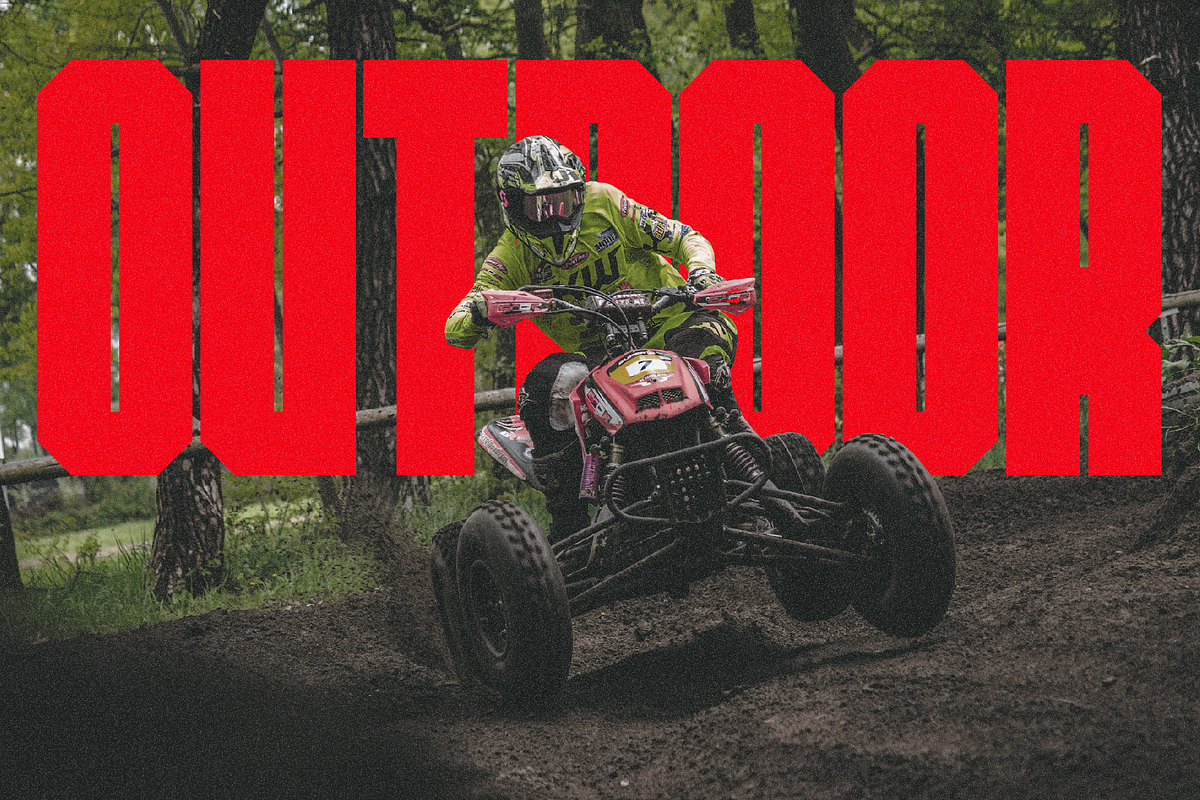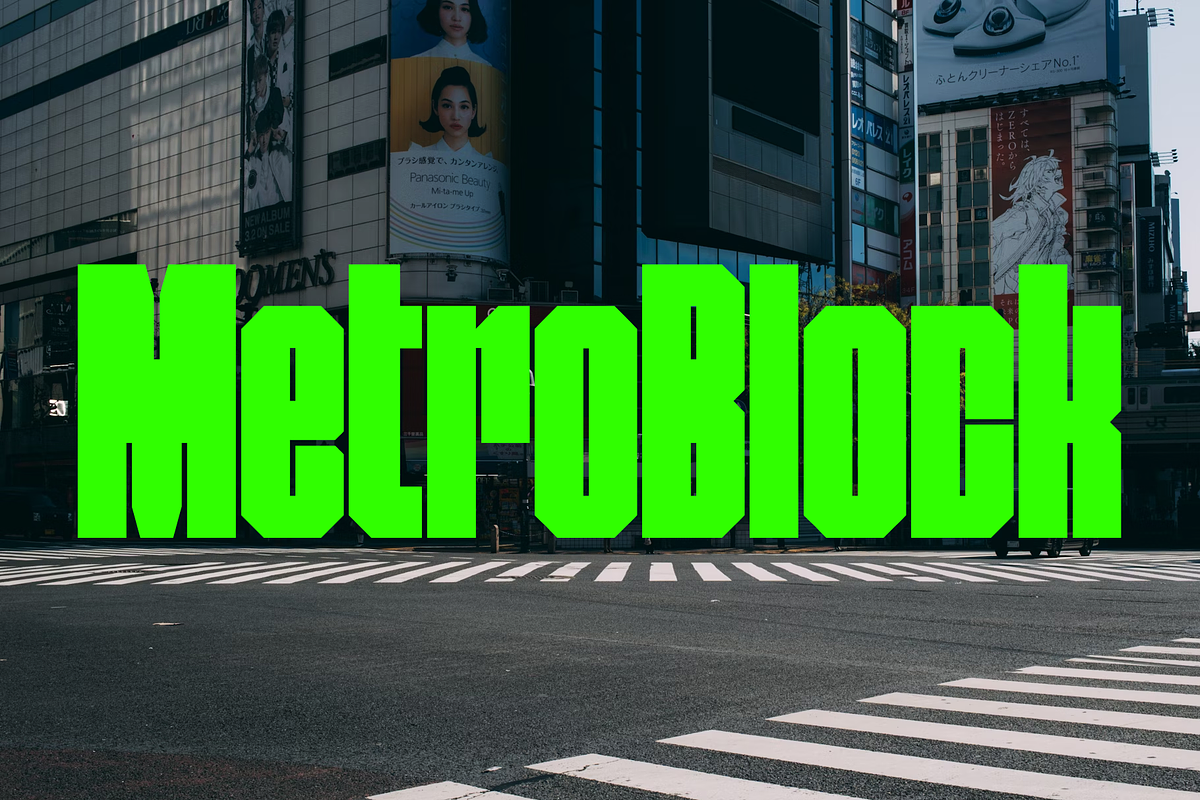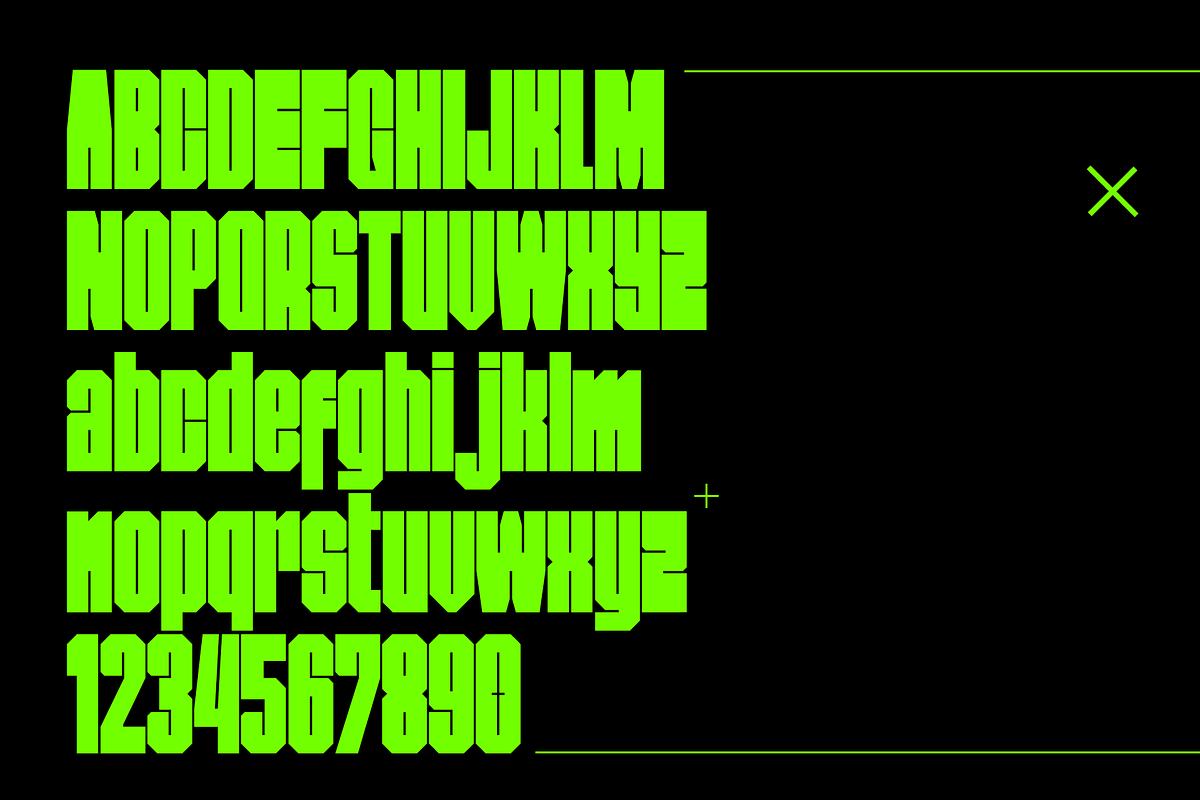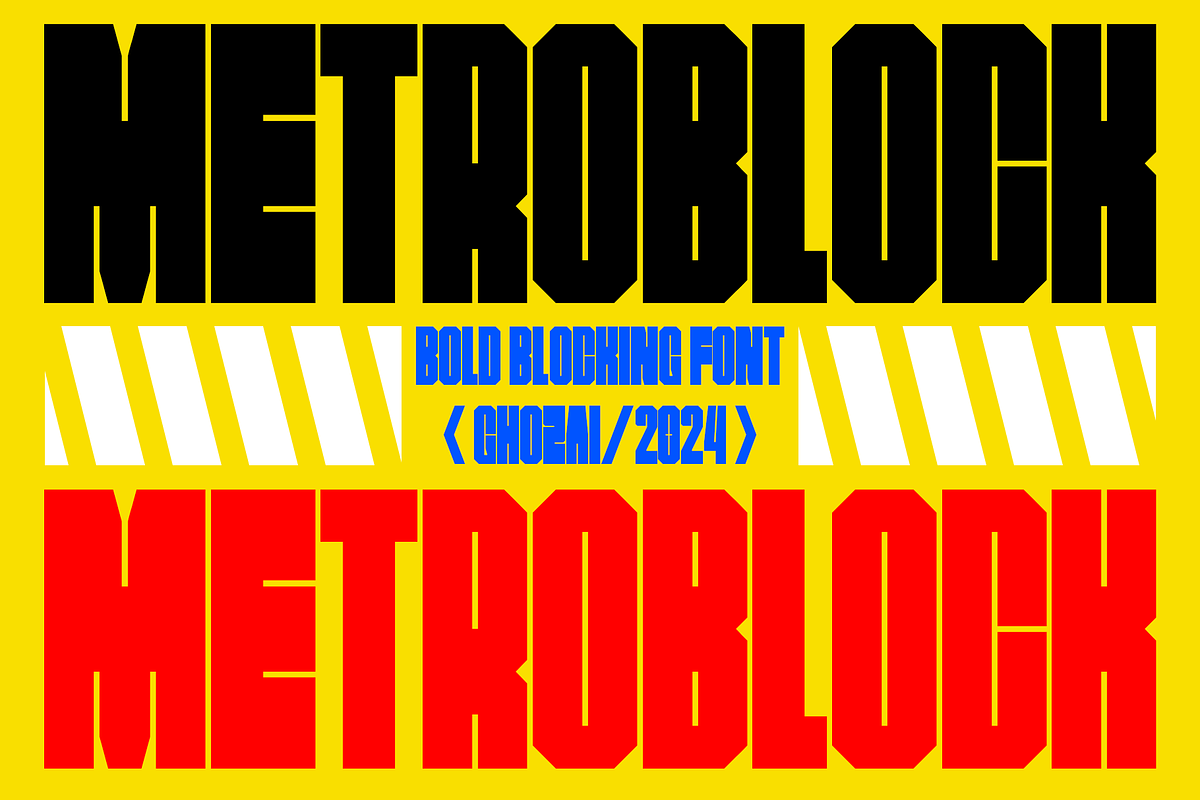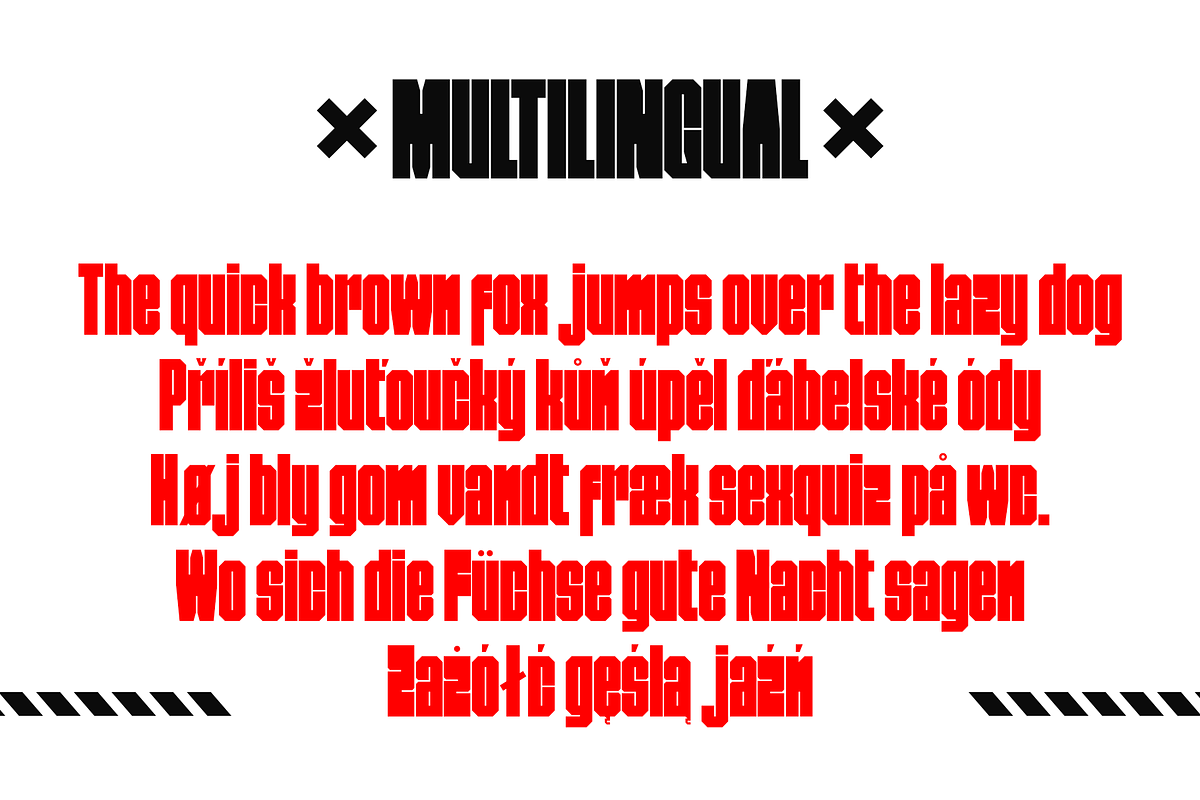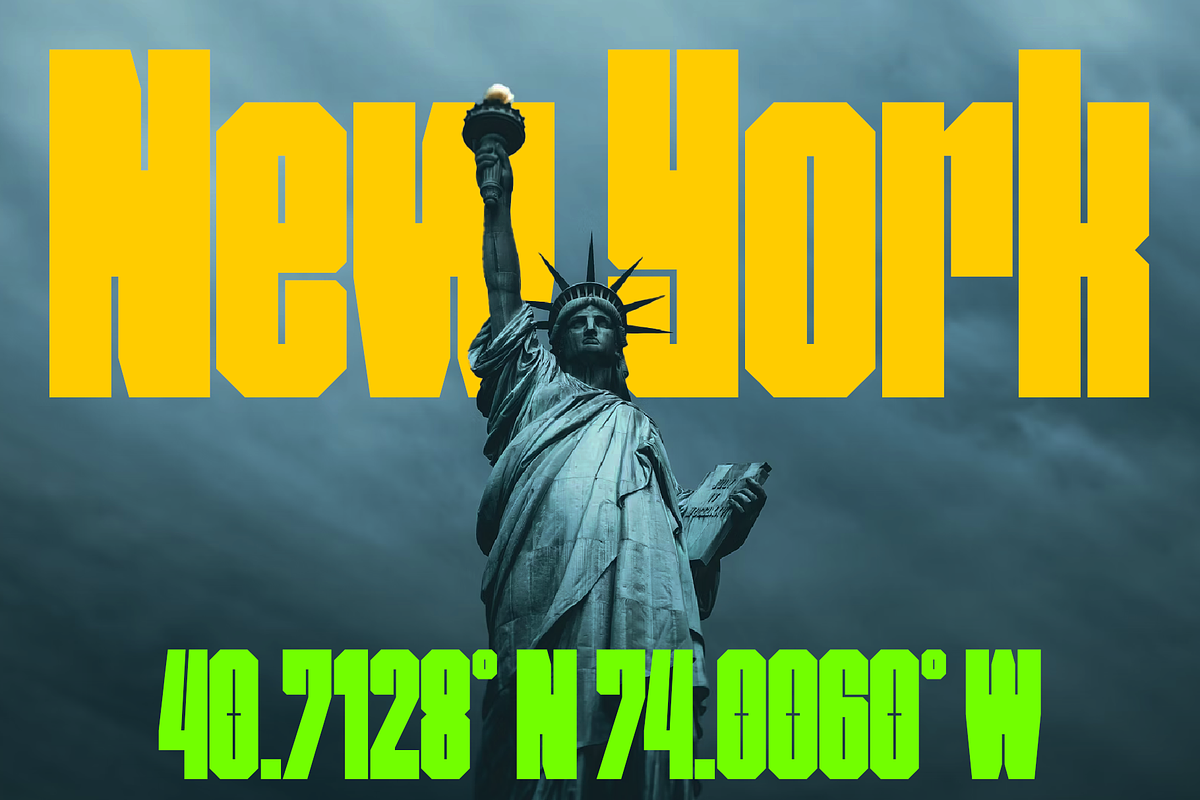
MetroBlock
MetroBlock is the simple and bold font for any of your projects. A bold appearance makes impactful typographic applications. It’s ideal for headlines, titles, signage, branding, and strong designs that require a big impact.
Packed with 300+ glyphs (multilingual characters included)